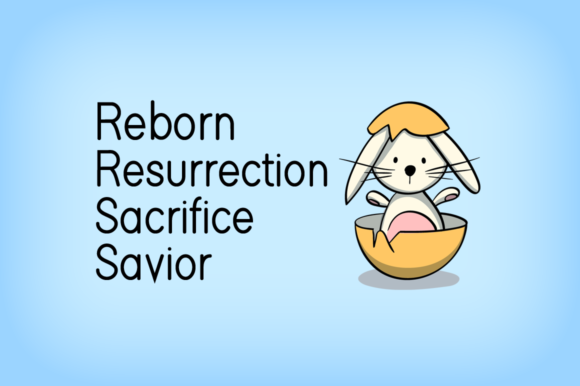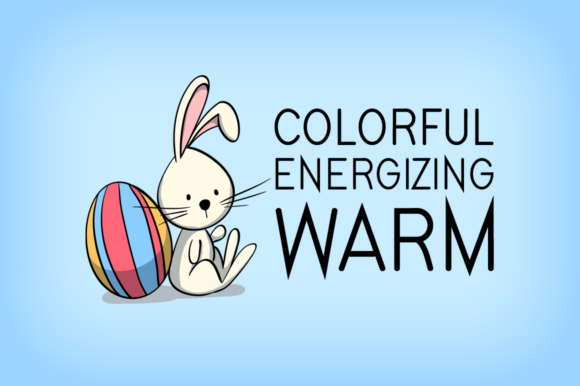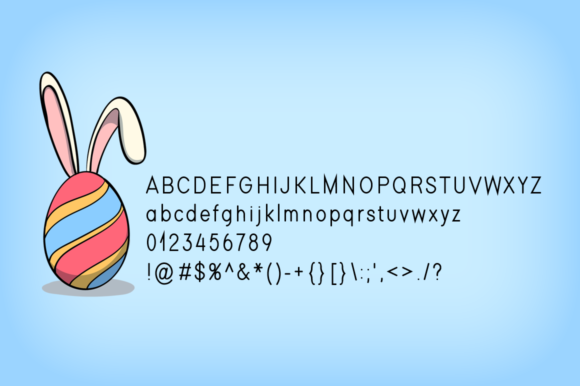
Introducing Funnybunny Font: The Ultimate Playful Display Font
Are you tired of using the same old fonts in your design projects? Look no further than Funnybunny Font, a clean and minimalist display font with a playful twist. This versatile font is perfect for designers and crafters who want to add a touch of whimsy to their work. In this article, we’ll dive into the features and benefits of Funnybunny Font and explore how it can elevate your design projects.
What is Funnybunny Font?
Funnybunny Font is a modern display font that combines clean lines and minimalist aesthetics with a playful edge. Its unique design makes it perfect for a wide range of applications, from branding and advertising to packaging and digital media. Whether you’re working on a logo, headline, or social media graphic, Funnybunny Font is sure to turn heads.
Key Features of Funnybunny Font
- Clean and Minimalist Design: Funnybunny Font features a sleek and modern design that’s perfect for creating a lasting impression.
- Playful Twist: The font’s playful edge adds a touch of whimsy to any design project, making it perfect for brands that want to stand out.
- Highly Versatile: Funnybunny Font can be used in a wide range of applications, from digital media to print materials.
- Easily Readable: Despite its playful design, Funnybunny Font is highly readable, even at small sizes.
Benefits of Using Funnybunny Font
So why choose Funnybunny Font for your design projects? Here are just a few benefits of using this amazing font:
- Adds a Touch of Whimsy: Funnybunny Font adds a playful edge to any design project, making it perfect for brands that want to stand out.
- Perfect for Branding and Advertising: The font’s clean and modern design makes it perfect for branding and advertising applications.
- Increases Readability: Funnybunny Font is highly readable, even at small sizes, making it perfect for digital media and print materials.
- Easy to Pair with Other Fonts: The font’s minimalist design makes it easy to pair with other fonts, allowing you to create a unique and cohesive look.
How to Use Funnybunny Font in Your Design Projects
Using Funnybunny Font in your design projects is easy. Here are a few tips to get you started:
- Use it as a Display Font: Funnybunny Font is perfect for use as a display font, making it ideal for headlines and titles.
- Pair it with Other Fonts: The font’s minimalist design makes it easy to pair with other fonts, allowing you to create a unique and cohesive look.
- Experiment with Different Sizes and Colors: Funnybunny Font looks great in a variety of sizes and colors, so don’t be afraid to experiment and find the perfect combination for your design project.
Who is Funnybunny Font for?
Funnybunny Font is perfect for a wide range of designers and crafters, including:
- Graphic Designers: Funnybunny Font is perfect for graphic designers who want to add a touch of whimsy to their design projects.
- Branding and Advertising Agencies: The font’s clean and modern design makes it perfect for branding and advertising applications.
- Crafters and Makers: Funnybunny Font is also perfect for crafters and makers who want to add a personal touch to their handmade products.